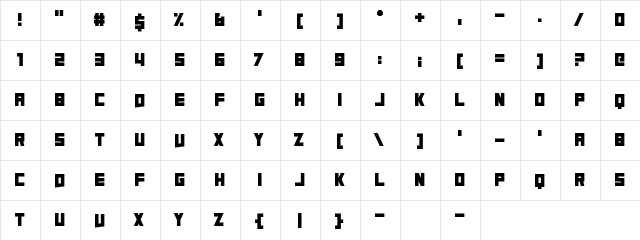
A Friend In Deed Regular
| Designer | Allison JJ |
Design Context for A Friend In Deed Typeface
A Friend In Deed is a composed and adaptable typeface that performs quietly and consistently across a wide range of design contexts.